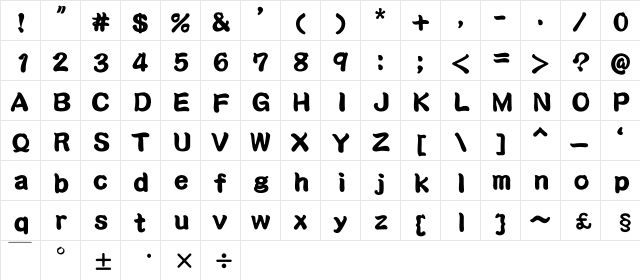
HanWangKanTan Regular
Design Context for HanWangKanTan Typeface
HanWangKanTan takes a measured approach to typography — its balanced proportions and neutral character make it a reliable workhorse for both digital and print work.